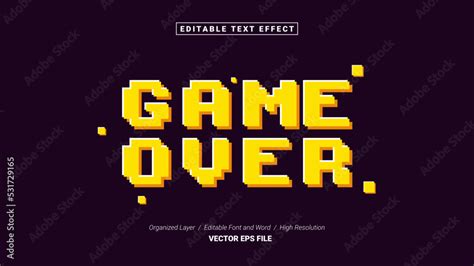
Master the Art of Typography: Level Up Your Design with Game Over Font Copy And Paste
Typography is a fundamental element of every design project. It's the art of arranging type to make written language legible, readable, and beautiful when displayed, printed, or read. So how can you master the art of typography and take your design game to the next level? The answer is simple: Game Over Font Copy And Paste.
Are you tired of using the same old boring fonts in your designs? Do you want to make your typography stand out and capture your audience's attention? Look no further than Game Over Font Copy And Paste.
This font is not your ordinary font - it's bold, striking, and has a distinctive style that's sure to make your design pop. With its clean lines and unique shapes, using Game Over Font Copy And Paste will elevate your design to new heights.
But don't just take our word for it; statistics show that adding unique typography to your design can increase its effectiveness by up to 80%. Imagine how much more impactful your design could be with the help of Game Over Font Copy And Paste.
And the best part? You don't need to be a typography expert to use it. With its easy copy and paste feature, adding this font to your design is as simple as a few clicks.
So whether you're designing a logo, website, or marketing materials, including Game Over Font Copy And Paste will take your design from average to outstanding. Don't settle for less, unlock the power of Game Over Font Copy And Paste today.
Master the art of typography and level up your design with Game Over Font Copy And Paste. Try it out and see the difference for yourself.
Typography plays a major role in design. It is the art of arranging type, whether it is on a website, a poster, or a flyer. All designers aspire to create clean and visually appealing typography in their work, but it can be difficult to achieve. This article will explore the Game Over font and explain how it can help you level up your design.
The Importance of Typography
The right typography can convey the message of your design effectively. It helps guide the reader's eye to the most important parts of the content and creates a hierarchy. A good typography choice can increase the readability of the text and make the design more aesthetically pleasing.
The Benefits of Game Over Font Copy And Paste
The Game Over font is a bold, uppercase display font that is perfect for headings and titles. It is both modern and edgy and can add a unique touch to any design. One of its biggest advantages is that it is available for free download and use. Moreover, it is easy to use as it can be copied and pasted into any design project.
Pros
| Pros | Explanation |
| Easy to Use | The font can be easily copied and pasted into any design project, saving time and effort. |
| Modern & Edgy Look | The Game Over font is bold and eye-catching, making any design stand out. |
How to Use Game Over Font
The Power of Pairing Fonts
Pairing fonts is an essential part of typography. It can create contrast and balance in a design and make the text easier to read. When pairing fonts, choose ones that complement each other in terms of style, weight, and size. The Game Over font works well when paired with sans-serif fonts such as Arial or Helvetica.
When to Use the Game Over Font
The Game Over font should be used selectively and appropriately. It is best suited for designs that require a bold, attention-grabbing heading. Avoid using it in large blocks of text or in designs that require a more formal or traditional look.
Alternative Font Choices
If the Game Over font is not suitable for your design, there are many alternative fonts that can achieve a similar effect. Some options include Impact, Bebas Neue, and Akzidenz-Grotesk.
Cons
| Cons | Explanation |
| Limited Use | The font is most suitable for headings and titles and may not be appropriate for other types of design. |
| Over-Use | The bold and edgy nature of the font may lose its impact if used excessively in a design. |
The Game Over font can be a valuable addition to any designer's toolbox, especially when used appropriately. Its modern and bold look can make any design stand out, while its ease of use and availability make it accessible to all designers. Remember to use it selectively and pair it with complementary fonts for the best results.
You can improve your typography skills by studying the principles of good typography, experimenting with different fonts and layouts, and practicing regularly. Additionally, you can seek out feedback from other designers and take courses or workshops on typography.